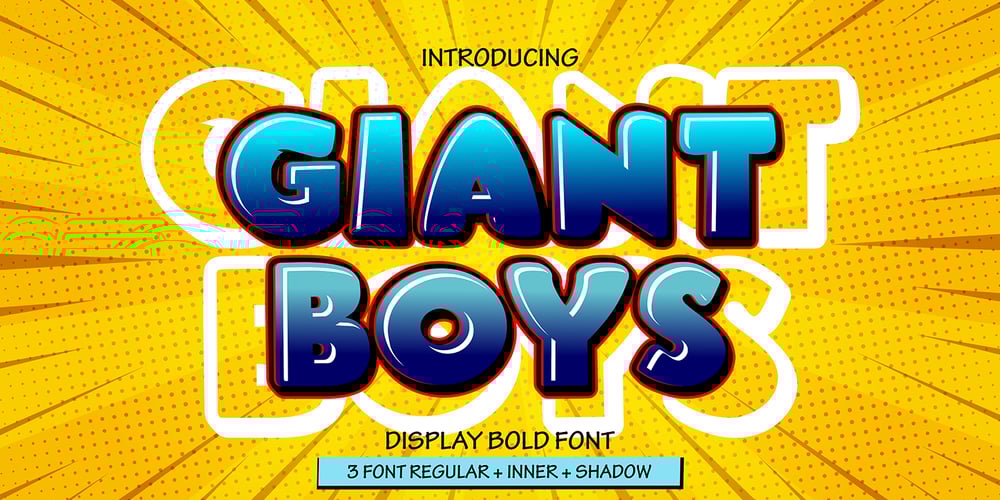
Giant Boys Font Family was designed by Sipanji and published by Sipanji21. Giant Boys contains 3 styles and family package options. “Giant Boys” is a cute display font characterized by thick and rounded letterforms, making it a great choice for design projects aimed at children, such as children’s games, book covers, and any projects related to schools. With its playful and friendly appearance, this font adds a touch of whimsy and charm to your designs, making them more engaging and enjoyable for young audiences. The simplicity and clarity of “Giant Boys” make it easy to read and understand, making it an excellent choice for educational materials and other projects aimed at young learners.